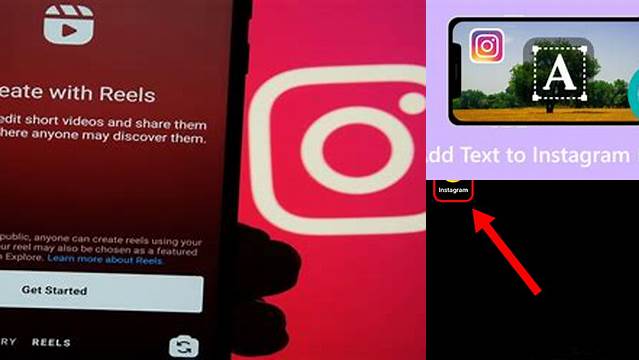
Add Fonts To Instagram Reels: A Step-by-Step Guide
Are you looking to spice up your Instagram Reels with some eye-catching fonts? Guys, you've come to the right place! Instagram Reels have become a powerhouse for creative expression, and using different fonts is a fantastic way to make your content stand out. In this comprehensive guide, we'll dive into the nitty-gritty of adding a variety of fonts to your Reels, ensuring your videos grab attention and effectively communicate your message. Let's jump in and transform your Reels from basic to brilliant!
Why Use Different Fonts on Instagram Reels?
Before we get into the how, let's talk about the why. Why should you even bother adding different fonts to your Instagram Reels? Well, the answer is simple: visual appeal and engagement. In a sea of content, you need something that makes your Reels pop. Using diverse fonts can:
- Capture Attention: A unique font can immediately grab a viewer's eye, making them stop scrolling and pay attention to your Reel.
- Enhance Branding: Consistent use of specific fonts can help reinforce your brand identity, making your content instantly recognizable.
- Convey Emotion: Different fonts have different personalities. A playful font can convey fun and excitement, while a bold, strong font can communicate authority and confidence.
- Improve Readability: Let's face it, some of the default Instagram fonts aren't the easiest to read. Using a clearer, more legible font ensures your message is understood.
- Add Creativity: Experimenting with fonts allows you to express your creative flair and add a unique touch to your videos.
Think of fonts as the voice of your text. Just as you vary your tone of voice in a conversation, using different fonts adds depth and personality to your Reels. A well-chosen font can elevate your message and connect with your audience on a deeper level. So, if you're serious about creating engaging Reels, mastering the art of font selection is crucial.
Native Instagram Fonts: A Good Starting Point
Instagram offers a selection of built-in fonts that are readily available when you create a Reel. These native fonts are a great starting point, especially if you're looking for simplicity and ease of use. To access these fonts, simply:
- Open Instagram and start creating a Reel.
- Record your video or upload one from your gallery.
- Tap the text tool (the "Aa" icon).
- Type your text.
- At the bottom of the screen, you'll see a row of font options. These are Instagram's native fonts.
Instagram's native fonts include classics like Modern, Neon, Typewriter, Strong, and Classic. Each font has its own unique style, so play around with them to see which one best suits your Reel's vibe. While these fonts are convenient, they can sometimes feel a bit limited if you're aiming for a truly distinctive look. That's where third-party apps and online tools come in, which we'll explore in the next section.
Don't underestimate the power of these built-in fonts, though. They're perfect for quick captions, short messages, and maintaining a consistent aesthetic. However, if you want to really stand out, you'll want to explore the world of custom fonts.
Using Third-Party Apps for Custom Fonts
Okay, guys, now we're getting to the good stuff! If you want to really make your Instagram Reels pop, you need to venture beyond the native fonts. This is where third-party apps come in. These apps offer a vast library of fonts, allowing you to add a unique touch to your videos. Here are some popular options:
Canva: Canva is a powerhouse of design tools, and it includes a massive font library. You can create your text in Canva, then save it as an image or video and upload it to your Reel. Canva's free version offers plenty of fonts, but the paid version unlocks even more options.
- Canva is a fantastic tool, especially due to its versatility and user-friendly interface. One of the key benefits of using Canva for Instagram Reels is its extensive font library, which goes far beyond the standard options available directly within Instagram. This allows creators to access a wide range of typographic styles, from elegant and classic fonts to modern and playful ones. Each font can convey a different mood or message, enhancing the overall visual appeal and emotional impact of the Reel. Moreover, Canva provides customization options that are not available on Instagram’s native platform. Users can adjust font sizes, colors, spacing, and even add effects such as shadows, outlines, and gradients, which provide a significant level of control over the text's appearance. This level of customization is crucial for branding and ensuring that the text aligns perfectly with the Reel’s content and style. Another advantage of using Canva is its ability to save text designs as images or video clips, which can then be seamlessly integrated into Instagram Reels. This process ensures that the text maintains its quality and formatting, whereas directly adding text within Instagram might lead to limitations in customization or resolution. Additionally, Canva's _collaborative features_ enable multiple team members to work on the same design, streamlining the content creation process for businesses and influencers. By leveraging Canva, users can significantly elevate the visual quality of their Instagram Reels, making them more engaging and professional-looking. This not only helps in attracting more viewers but also in retaining their attention, which is vital in the competitive landscape of social media content. The comprehensive design capabilities of Canva make it an indispensable tool for anyone serious about creating standout content on Instagram.
Over: Over is another great app for adding text and graphics to your Reels. It has a wide selection of fonts and templates specifically designed for social media content.
- Over distinguishes itself as a highly versatile and user-friendly application that caters specifically to the creative needs of social media content creators. Its primary strength lies in its extensive library of design elements, which includes a vast array of fonts, graphics, and templates that are perfectly tailored for platforms like Instagram Reels. This ensures that users have a plethora of options at their fingertips to elevate the visual appeal of their videos. The font selection in Over is particularly noteworthy. It offers a wide spectrum of styles, ranging from traditional and elegant typefaces to modern and quirky fonts, enabling users to select the perfect font that complements the mood and message of their Reel. Beyond just font selection, Over provides a comprehensive set of tools for text customization. Users can easily adjust font sizes, colors, spacing, and alignment to ensure the text seamlessly integrates with their video content. Additionally, the app supports advanced typographic effects such as shadows, outlines, and text masking, allowing for the creation of visually stunning and unique text overlays. Over’s template library is another significant advantage. These pre-designed templates are specifically crafted for various social media formats, including Instagram Reels, and cover a wide range of themes and styles. This is particularly beneficial for users who may not have extensive design experience, as they can quickly create professional-looking visuals by simply customizing the templates with their own content. Furthermore, Over’s intuitive interface makes it easy for users to navigate the app and utilize its features effectively. The drag-and-drop functionality simplifies the process of adding and arranging design elements, while the real-time preview feature allows users to see exactly how their creations will look before they are finalized. Over's integration with other Adobe Creative Cloud services enhances its utility for professional designers, enabling seamless workflows and access to additional resources. Overall, Over is an invaluable tool for anyone looking to create visually engaging Instagram Reels, offering a blend of versatility, ease of use, and professional-grade design capabilities.
By using different fonts strategically, you can elevate your Reels, capture your audience's attention, and effectively communicate your message. So go ahead, get creative, and start adding some personality to your Reels with the perfect fonts! Your Instagram game will thank you for it.